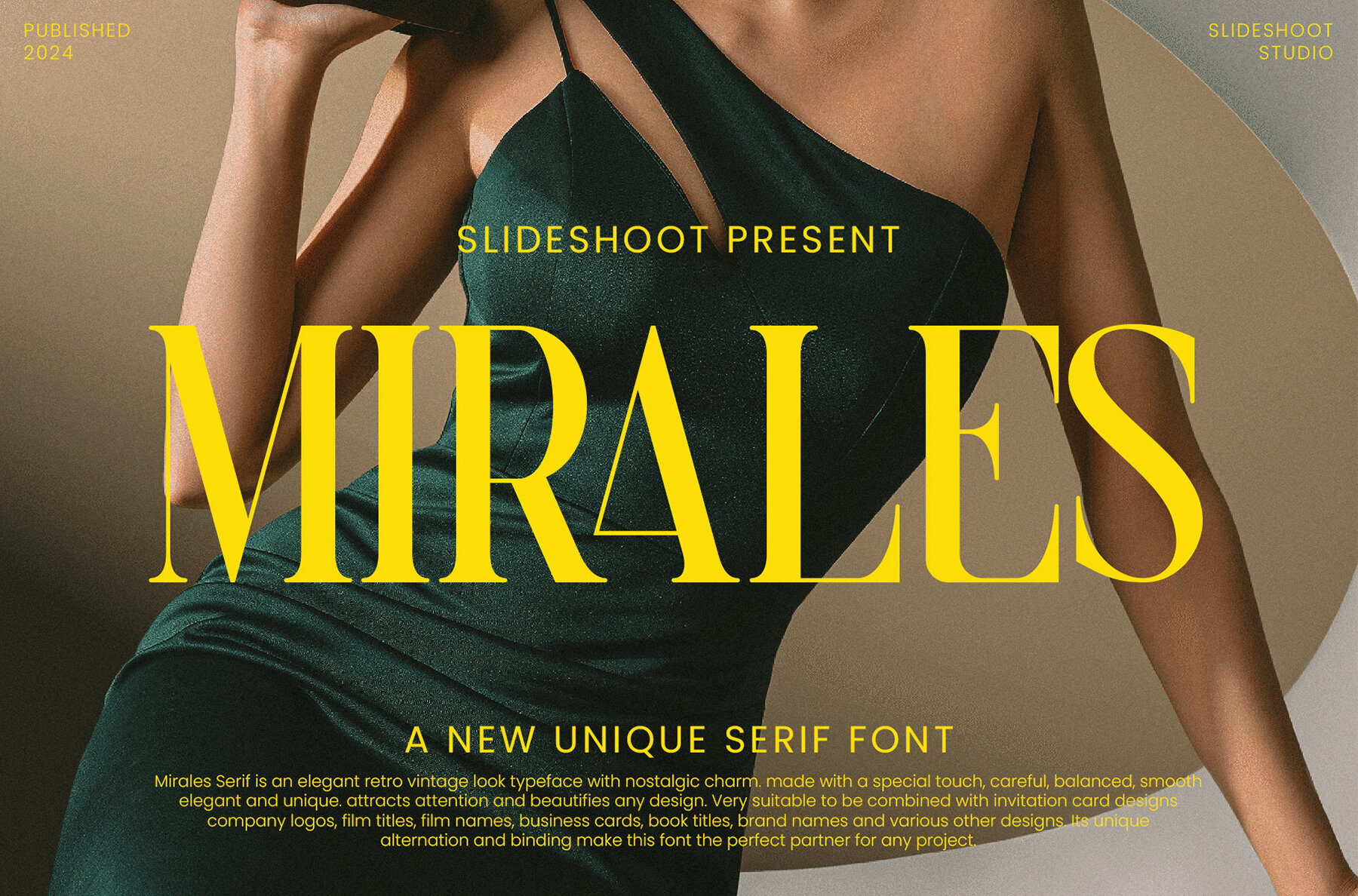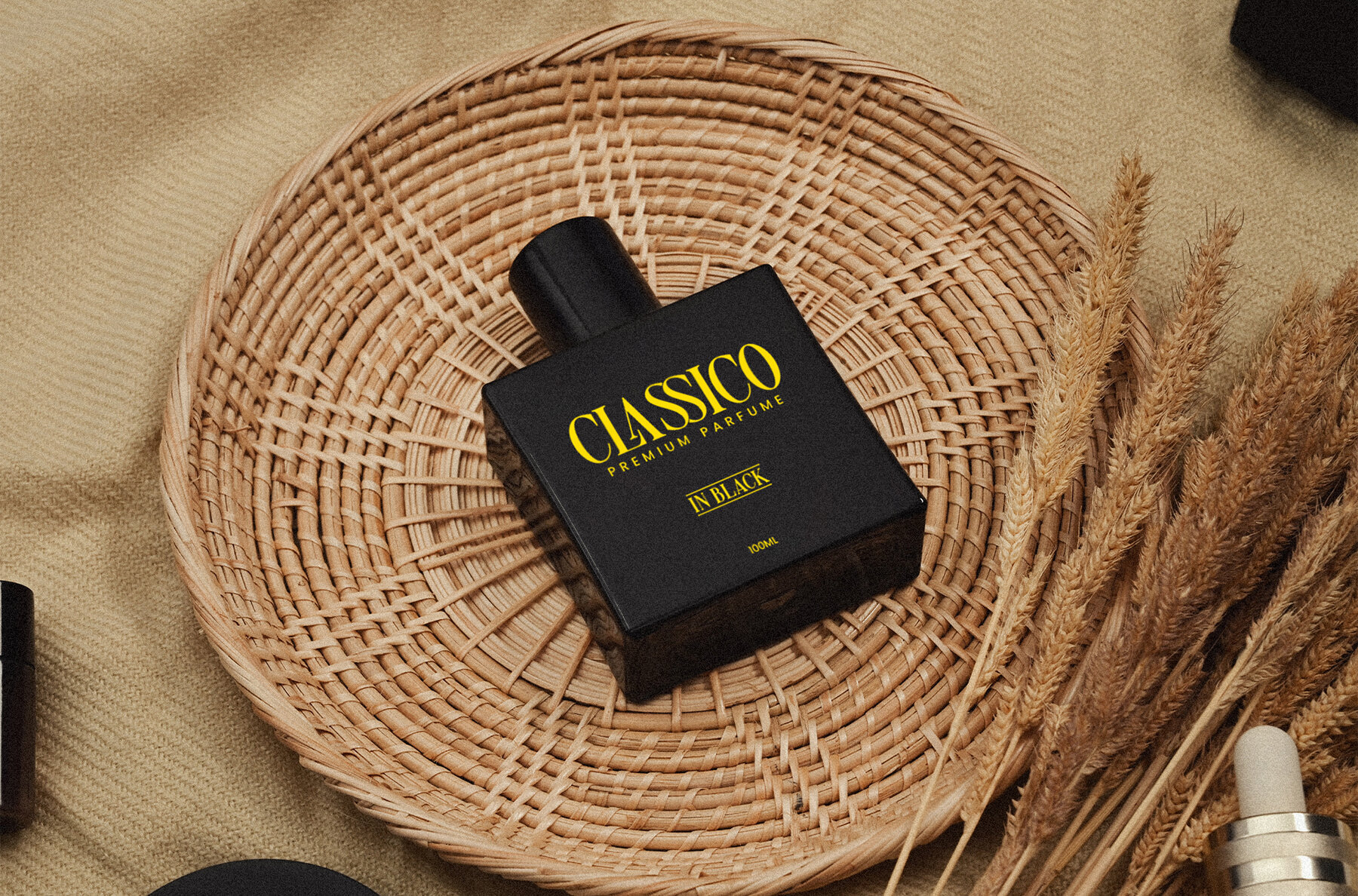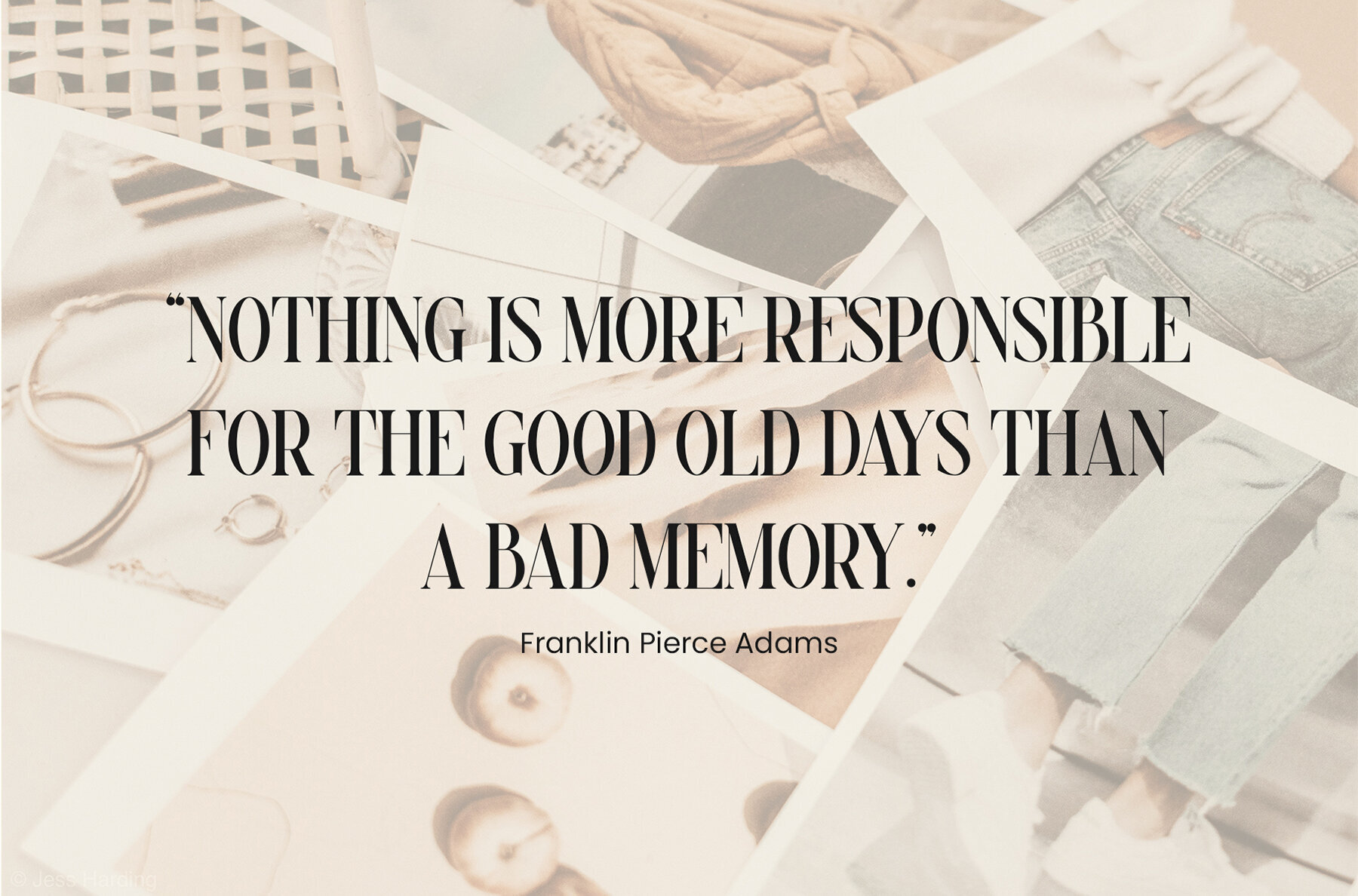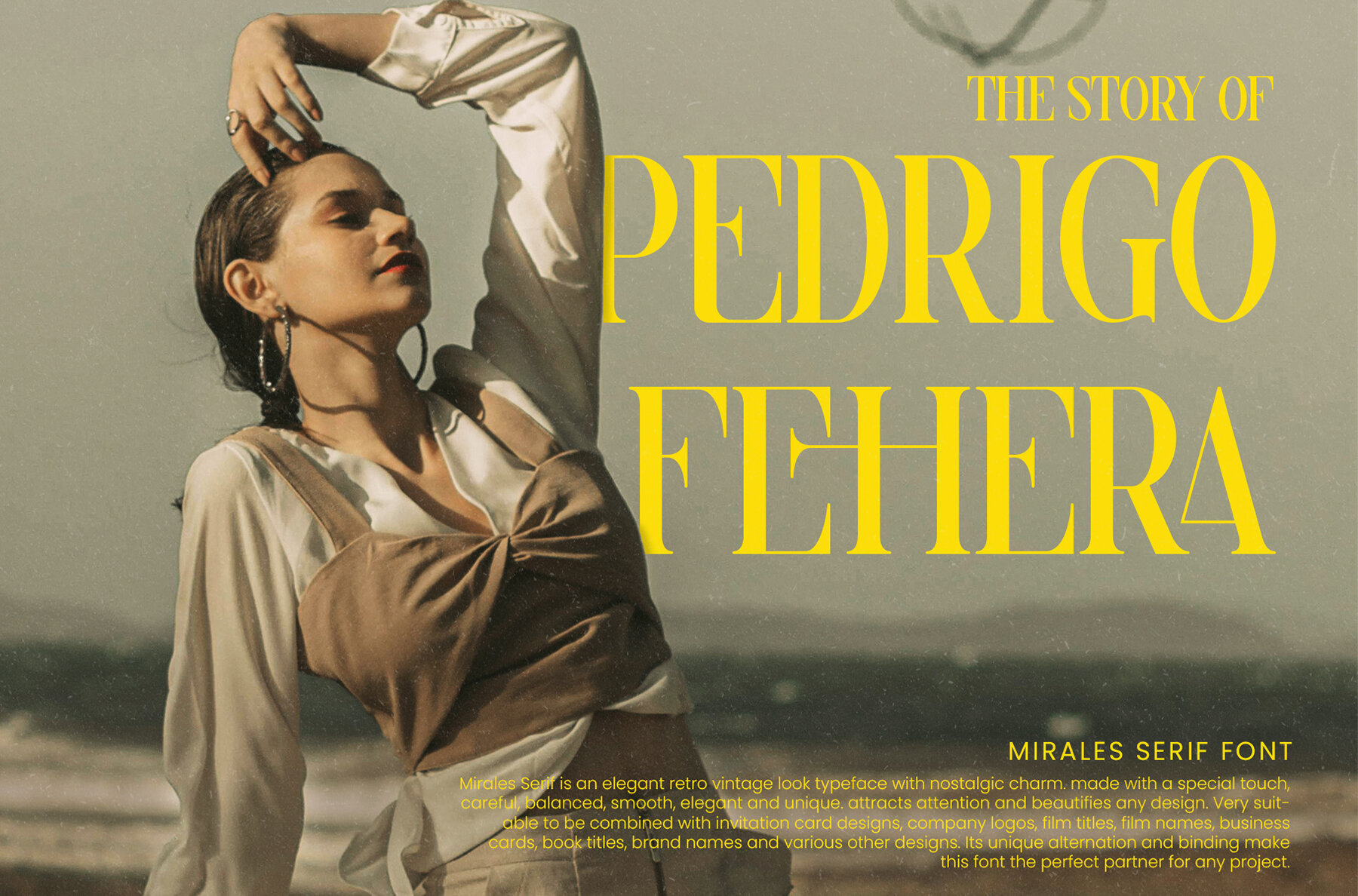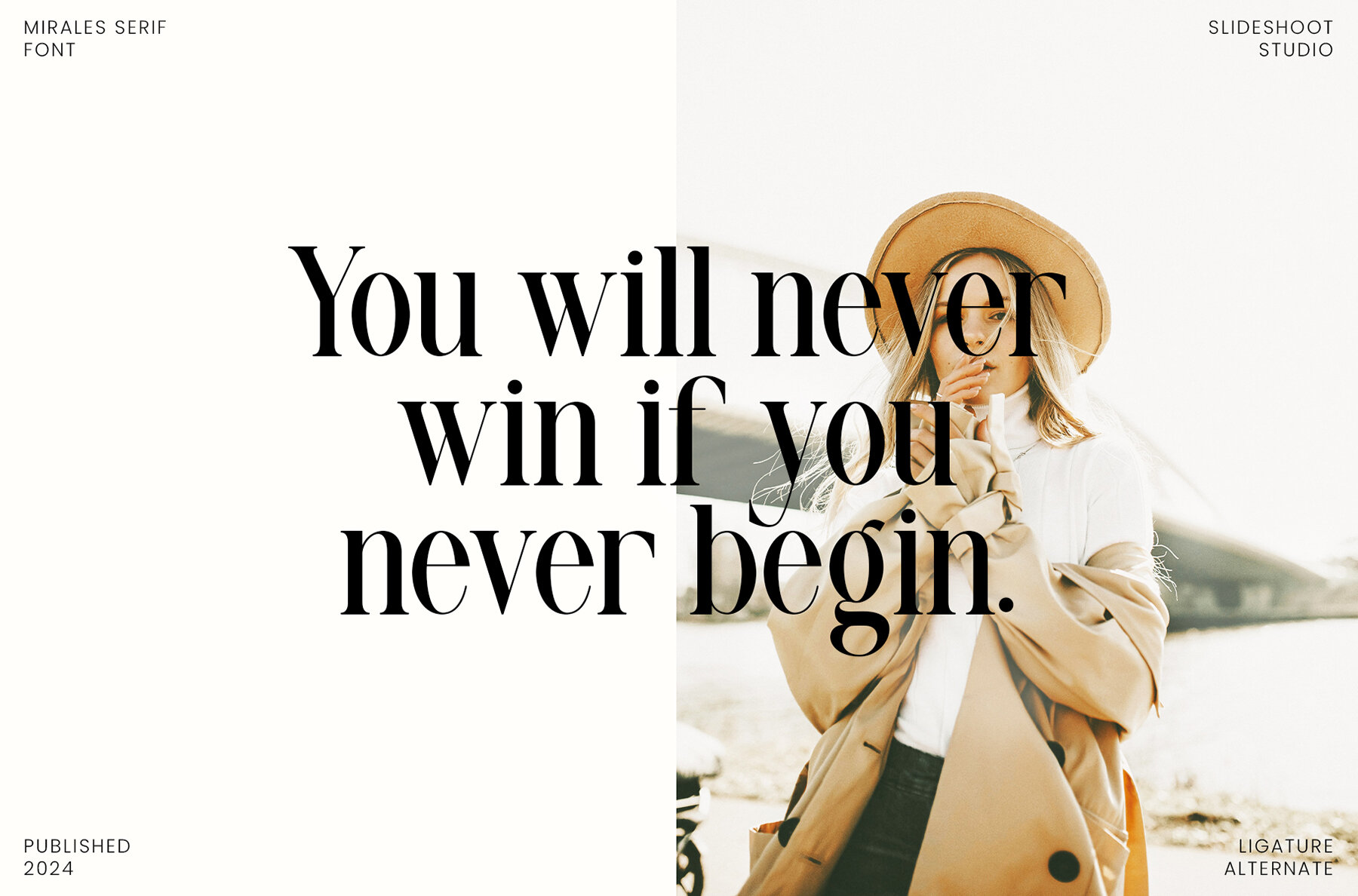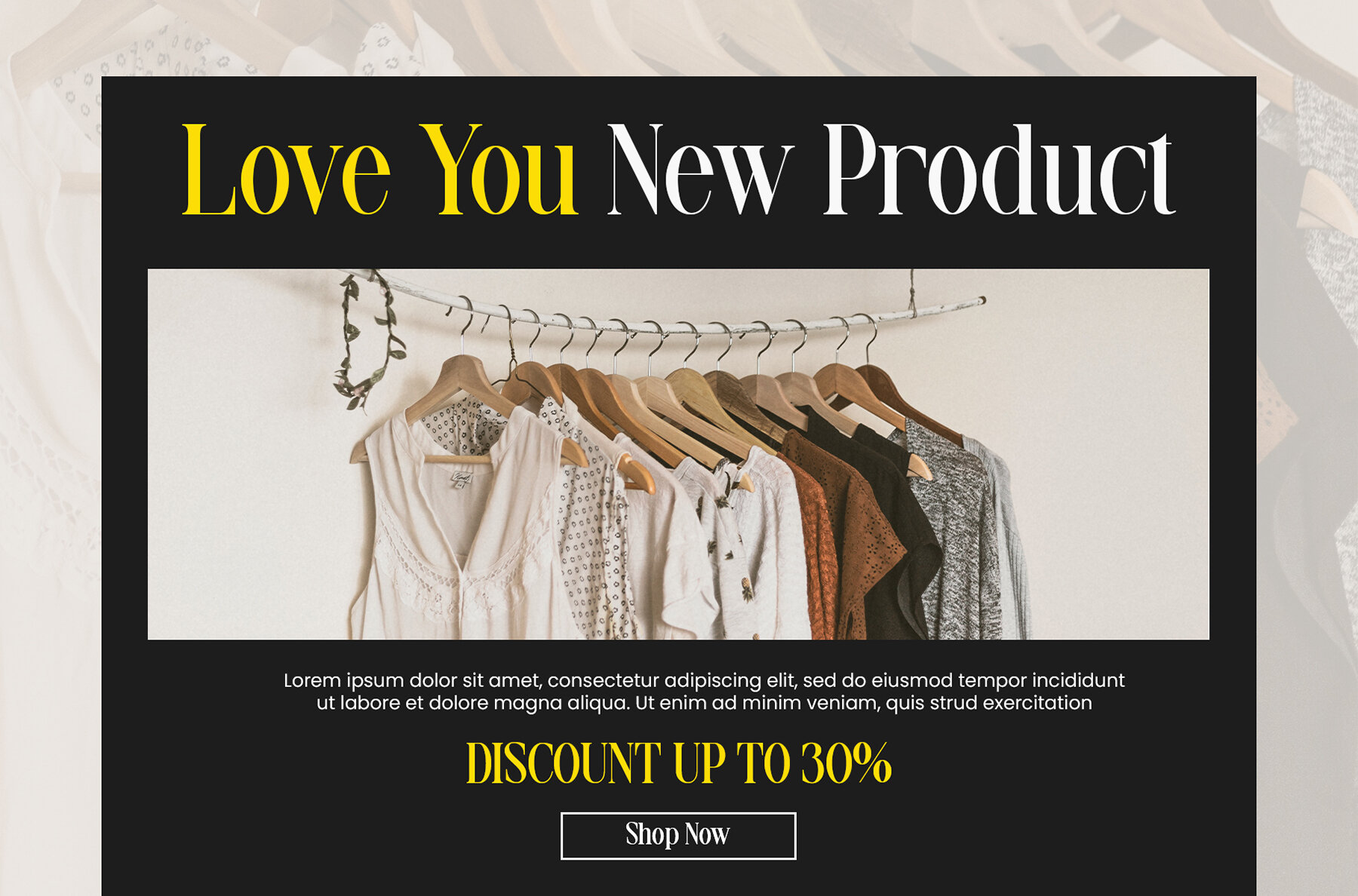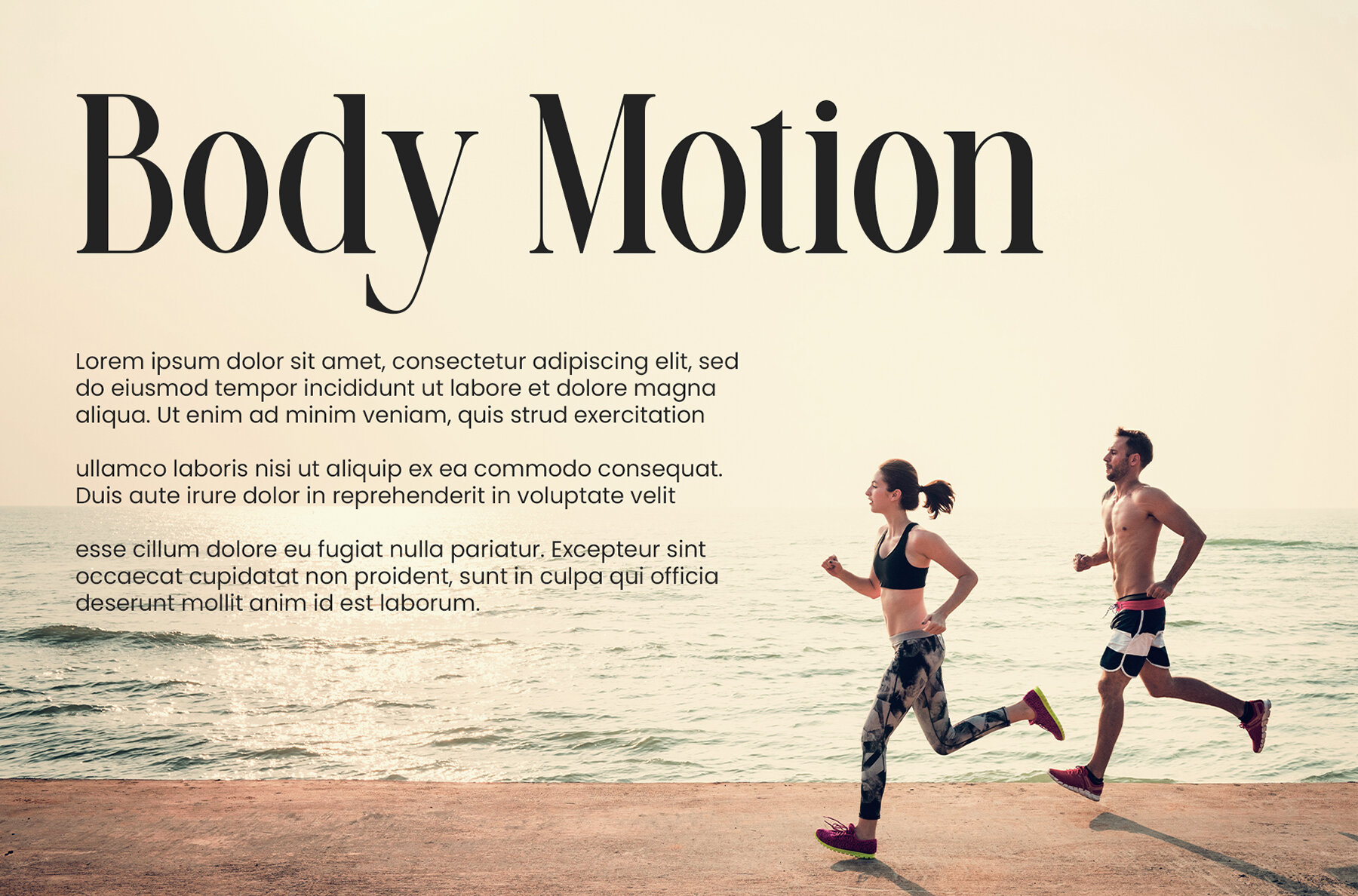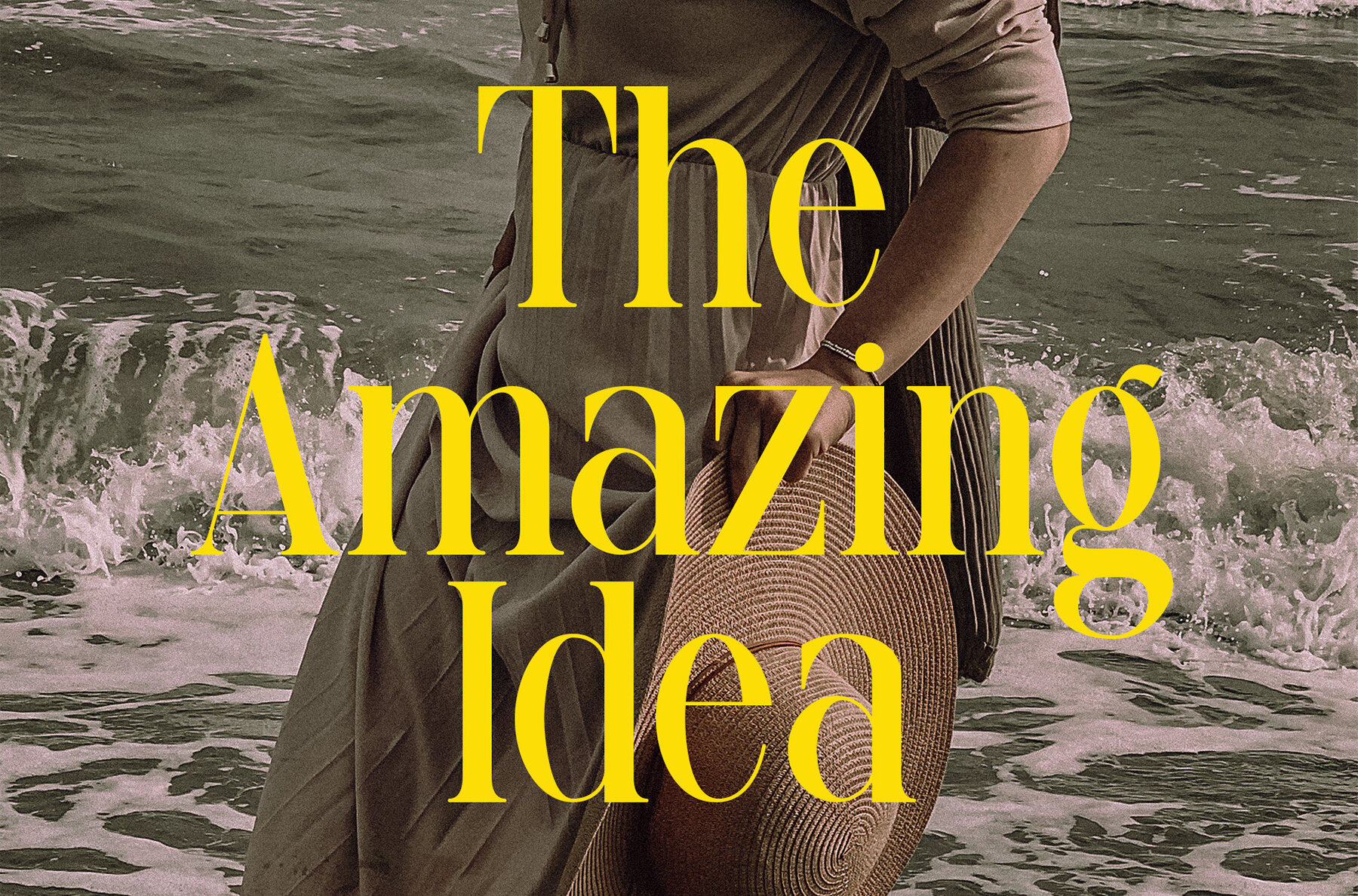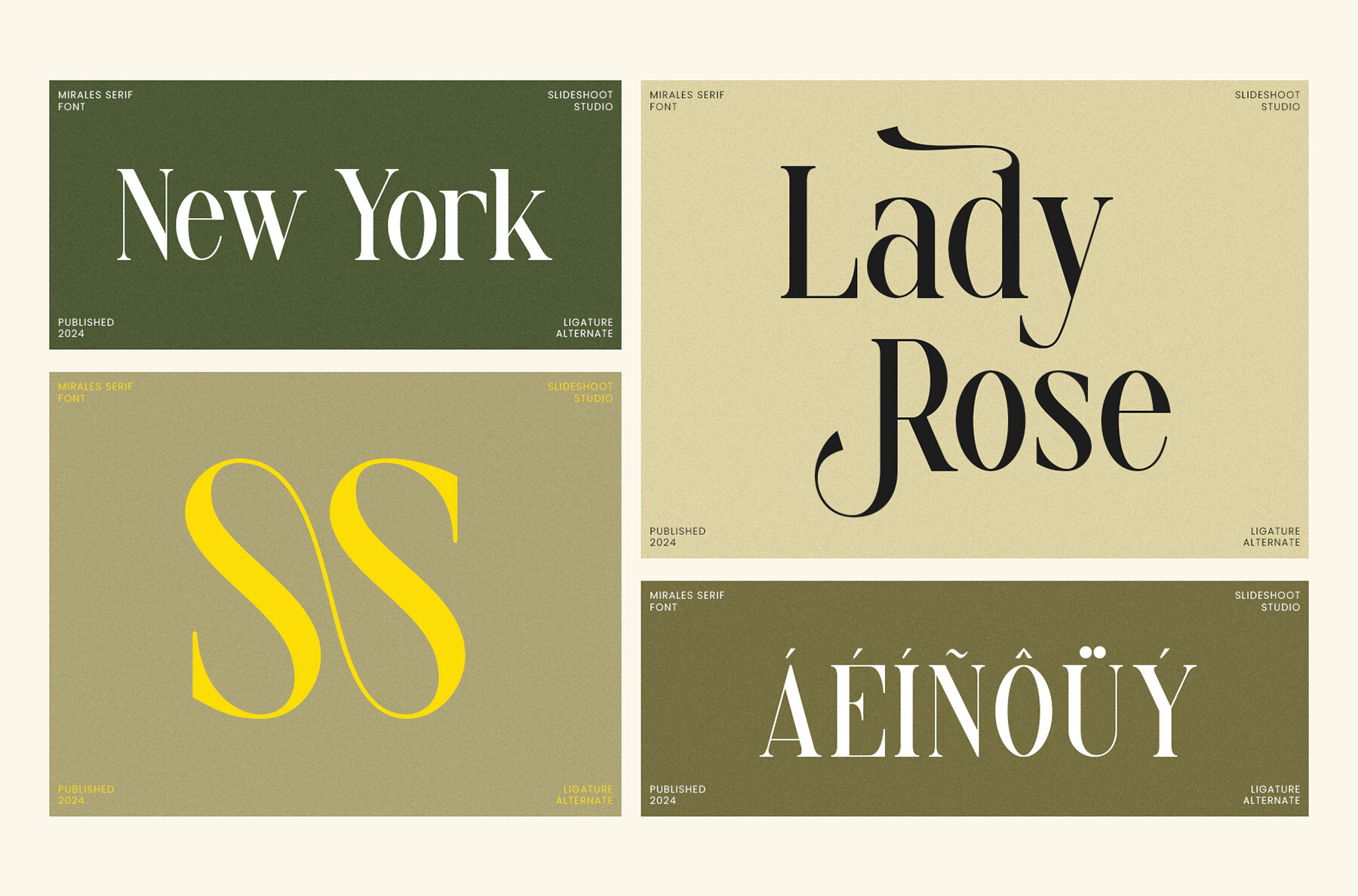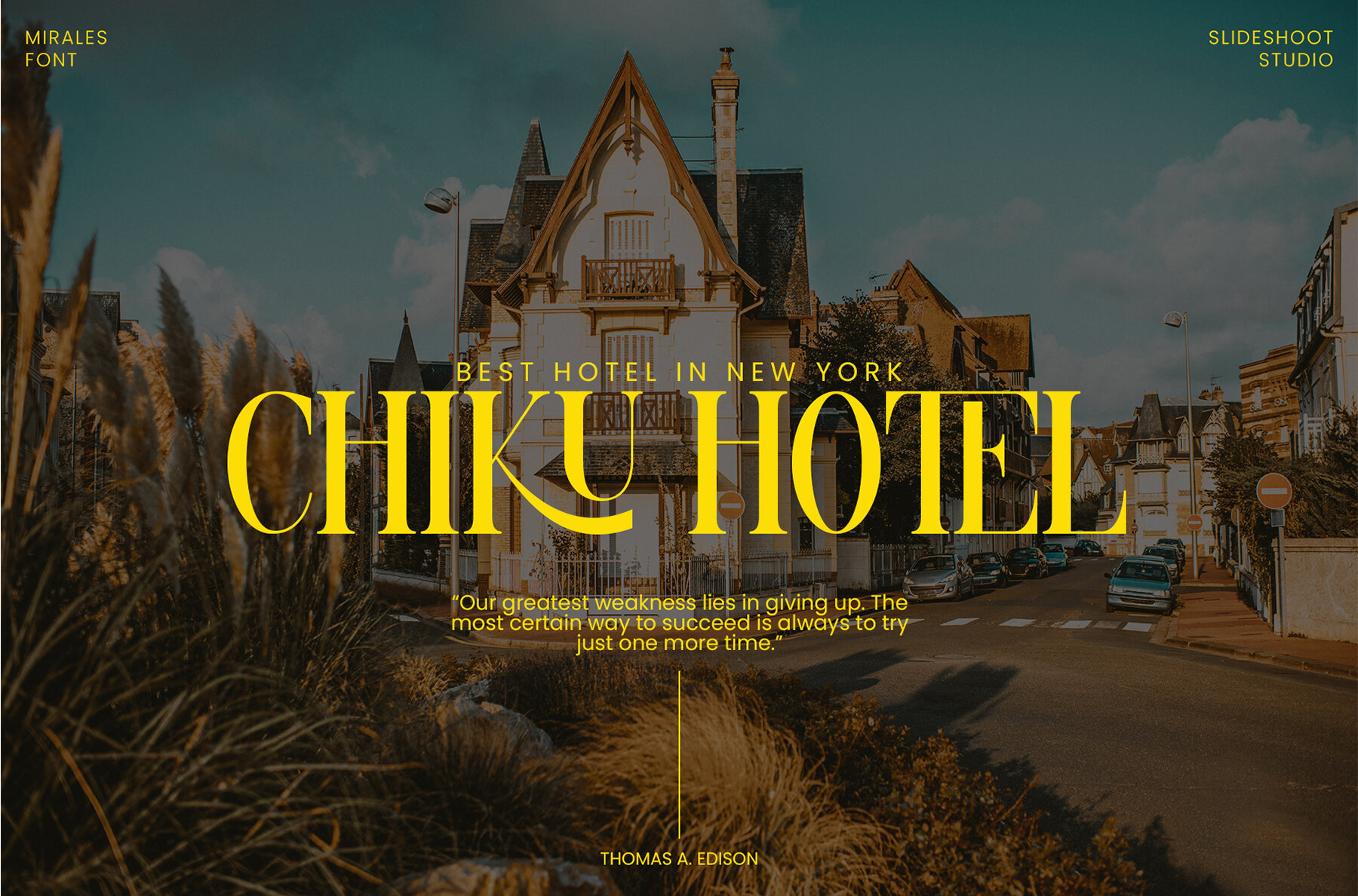
Mirales Font
Mirales Regular
Mirales Serif is an elegant retro vintage look typeface with nostalgic charm. made with a special touch, careful, balanced, smooth, elegant and unique. attracts attention and beautifies any design. Very suitable to be combined with invitation card designs, company logos, film titles, film names, business cards, book titles, brand names and various other designs. Its unique alternation and binding make this font the perfect partner for any project. FEATURE: